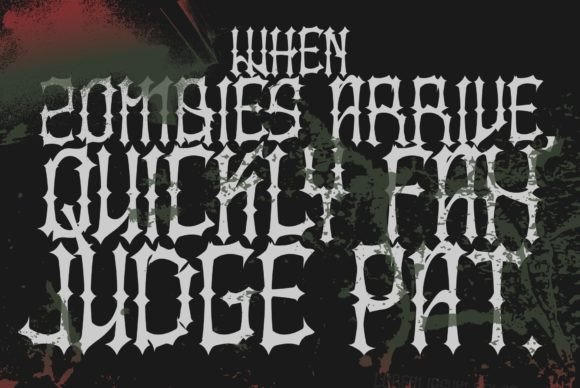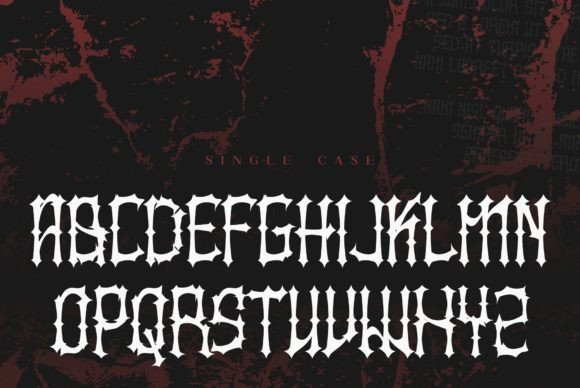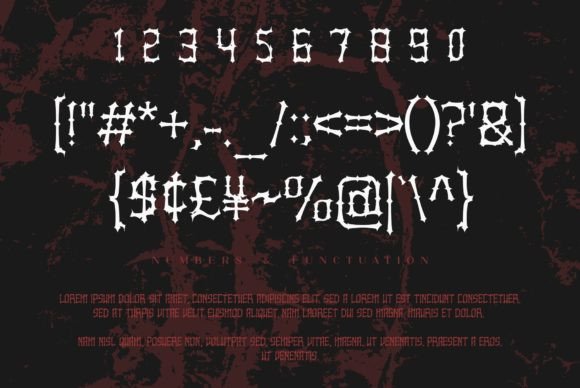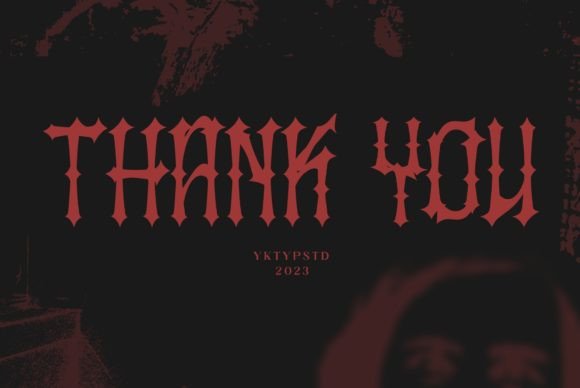
Introduction to Kruesm Font
Have you ever stared at a blank canvas, trying to conjure up the perfect design to capture the essence of your creative project? The blank space can be intimidating, but what if you had the perfect tool to unleash your dark imagination? Enter Kruesm Font, a high-quality display font that will transport your designs into an unsettling realm of terror.
This free download is a treasure trove for designers seeking to infuse their work with an eerie vibe. With Kruesm Font, you can create spine-tingling posters, haunting Halloween invitations, or any project demanding an infusion of uncanny intrigue. Whether you’re working on a design resource for a client or a personal project, this font is sure to send shivers down the viewer’s spine.
What sets Kruesm Font apart is its ability to add an air of mystery and foreboding to your designs. With a transparent background, you can layer it over any image or texture, creating an otherworldly effect. Its high-quality design ensures that your projects will stand out from the crowd, making it a valuable addition to any designer’s toolkit.
Key Features of Kruesm Font
- Unique and modern design: Kruesm Font is a high-quality, free design resource ideal for creative projects that require a unique touch.
- Transparent background: This font features a transparent background, making it easy to use with any background or design element.
- High-resolution design: This font is designed at a high resolution, making it perfect for use in print and digital applications.
- Perfect for creative projects: Kruesm Font is ideal for use in creative projects such as logos, branding, and typography-based designs.
- High-quality design: This font is designed with a focus on high-quality typography, ensuring that it looks great in a variety of contexts and applications.
Honest Review: Kruesm Font
I recently stumbled upon the Kruesm Font while searching for a unique design resource for a creative project. Initially, I was drawn to its quirky, hand-drawn aesthetic, which I thought would add a personal touch to my design.
Here’s what works well about this font:
- ✨ Unique, hand-drawn style that adds a touch of personality to any design.
- ✨ Offers a high-quality design that looks professional and well-crafted.
- ✨ Transparent background allows for easy use in a variety of design contexts.
- ⚠️ Limited character set, which may not be ideal for extensive text-based projects.
- ⚠️ Some letters may not be easily readable, especially at smaller font sizes.
Overall, I would say that the Kruesm Font is a great choice for designers looking to add a unique touch to their creative projects. While it may have some limitations, its free download and high-quality design make it a valuable resource for designers on a budget.
Kruesm Font is a high-quality design resource that can elevate your creative project with its unique style. This free download is perfect for designers looking for a versatile font that can add a touch of sophistication to their work.